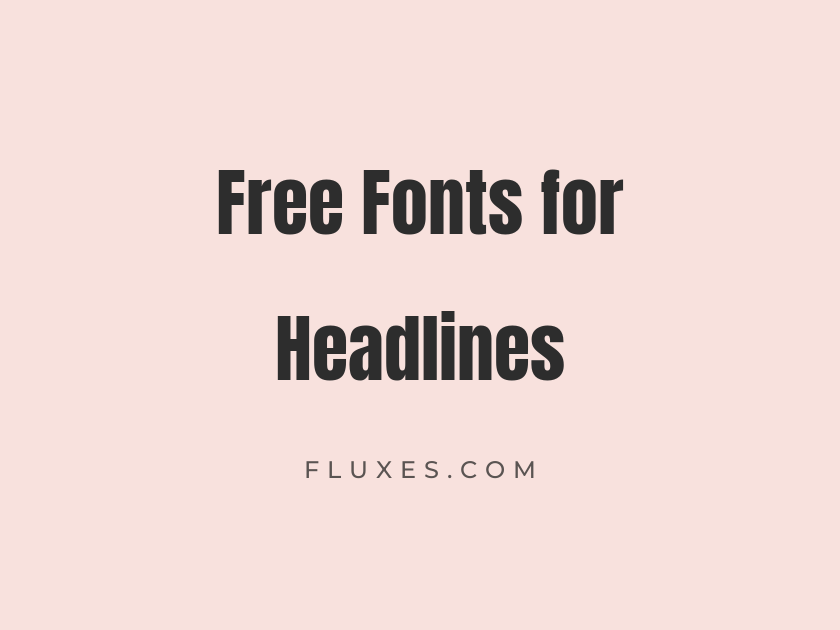
69 Best Free Fonts for Headlines
Headlines carry the whole weight of first impressions. A strong headline typeface has to work at enormous size, hold its shape when cropped tight against an image, and still say something about the tone of the piece underneath it. Whether you’re building a magazine layout, a landing page, a blog theme, or a poster, the right free display font from Google Fonts can do more storytelling in three words than a paragraph of body copy ever could.
The options below span bold grotesques, elegant serif display faces, punchy slabs, condensed workhorses, and a few characterful novelty picks for when a headline needs real personality. All of them are free to download and easy to pair with a calmer body text underneath.
Anton is about as loud as a sans serif gets without turning into a stencil. The letterforms are compressed and extremely heavy, built for one purpose: filling a headline slot with maximum visual weight and zero fuss.
It reads best in all caps at large sizes, where its density becomes an asset rather than a liability. At small sizes it can feel cramped, so save it for the big statement above the fold rather than a subhead.
Pair it with a light, airy body font like Karla or Work Sans so the contrast does the work of a whole design system.
Bebas Neue has been a default headline choice for so long it borders on a design cliché, but it earns that popularity honestly. Its tall, narrow caps feel confident on posters, hero banners, and section titles alike.
Because it only ships in one weight, it works best as a single strong accent rather than a whole typographic system. Reach for it when a title needs to feel modern, urban, and slightly aggressive without shouting in italics or color.
Oswald began life as a reworking of classic condensed gothics, and that heritage shows in its tidy proportions and slightly squared curves. It’s narrow enough to pack a lot of words into a headline without wrapping awkwardly, which makes it a favorite for news sites and blogs with long titles.
The bold weight in particular has enough presence to anchor a homepage while still feeling like a working, editorial typeface rather than a decorative one.
Archivo Black is a no-nonsense grotesque with thick, even strokes and almost no personality quirks to get in the way of legibility. That restraint is exactly why it works so well as a headline face for tech products, startups, and data-driven publications.
League Gothic
A Condensed Voice for Big Statements
League Gothic
League Gothic revives an old American Gothic style, narrow and upright with a slightly industrial feel. It suits mastheads and section labels that need to feel authoritative without leaning on heaviness alone.
Staatliches has a stamped, slightly worn quality reminiscent of vintage badges and signage. It’s a fun choice for event promotion, retro branding, or any headline that wants a little grit.
Fjalla One is condensed but rounder and friendlier than most of its category, making it approachable rather than severe. It reads cleanly at small headline sizes too, which is rarer than it sounds among condensed display faces.
Passion One is a rounded, chunky display face with a slightly playful bounce to its curves. It suits youth brands, entertainment sites, and anywhere a headline needs energy without tipping into full novelty territory.
Alfa Slab One is an extremely heavy slab serif, almost cartoonish in its thickness. It works best in short bursts, a word or two at most, since long headlines quickly turn into a dense black bar.
Bungee borrows its DNA from hand-painted city signage, with sturdy geometric letterforms built to survive at billboard scale. It brings an urban, poster-like energy to headlines on travel sites, event pages, and street culture brands.
The inline variant of Bungee adds a second color layer inside each letter, which makes it a striking option for a hero headline that needs to double as a piece of graphic design.
Bungee Shade builds in a drop shadow effect directly into the glyphs, giving flat headlines an instant sense of dimension without any extra CSS trickery.
Righteous has a smooth, rounded geometry that feels pulled from seventies signage and retro science fiction posters. It’s an easy way to give a headline a nostalgic, slightly playful edge.
Luckiest Guy looks like it was lettered by hand for a comic book cover, thick and bouncy with irregular curves. Save it for playful, informal contexts; it will fight with anything that needs to feel serious.
Limit yourself to one or two display fonts per project. A page full of competing headline styles reads as noisy rather than confident.
There’s no single correct headline font, only the right one for a given voice and audience. With this many strong, genuinely free options available through Google Fonts, it’s worth testing a few directly in a live layout before committing to the one that will carry your next headline.